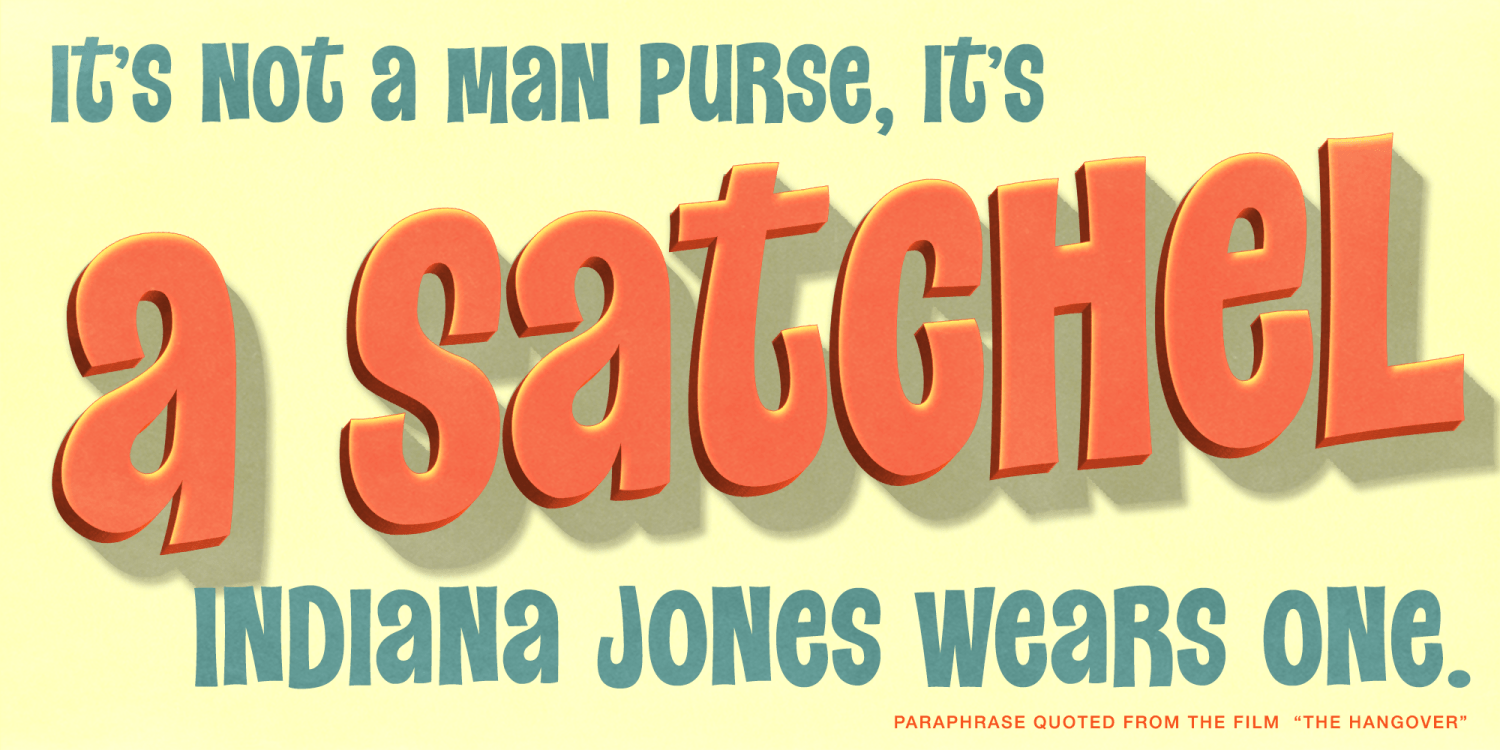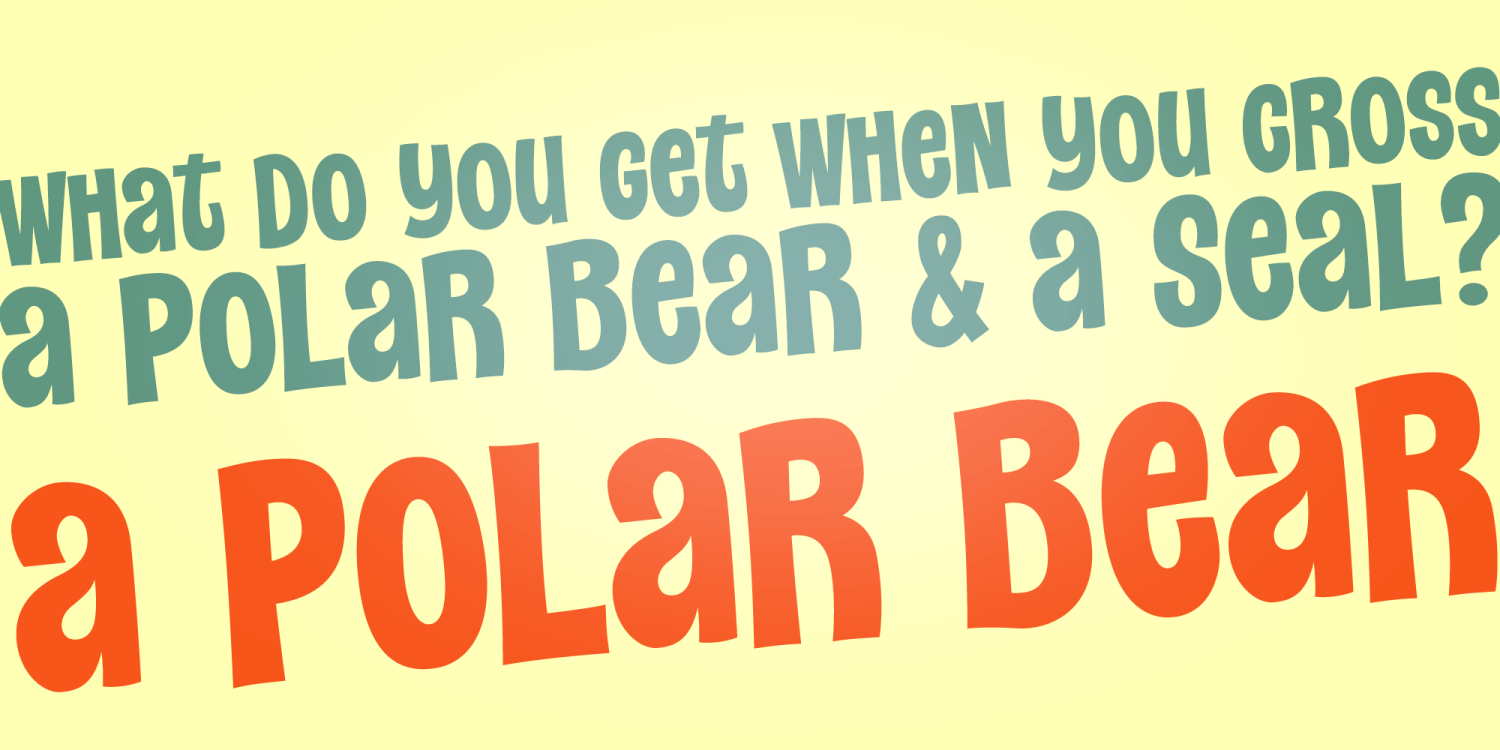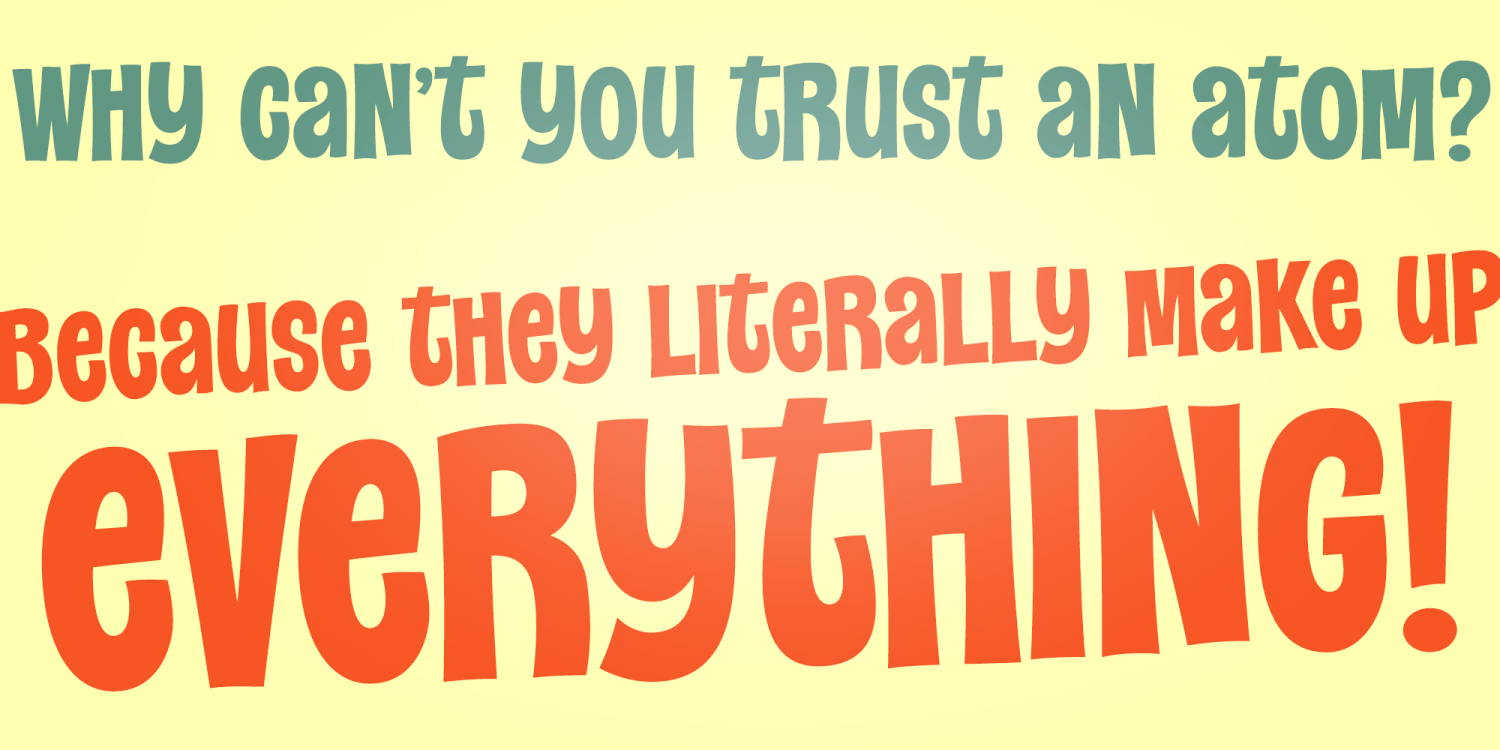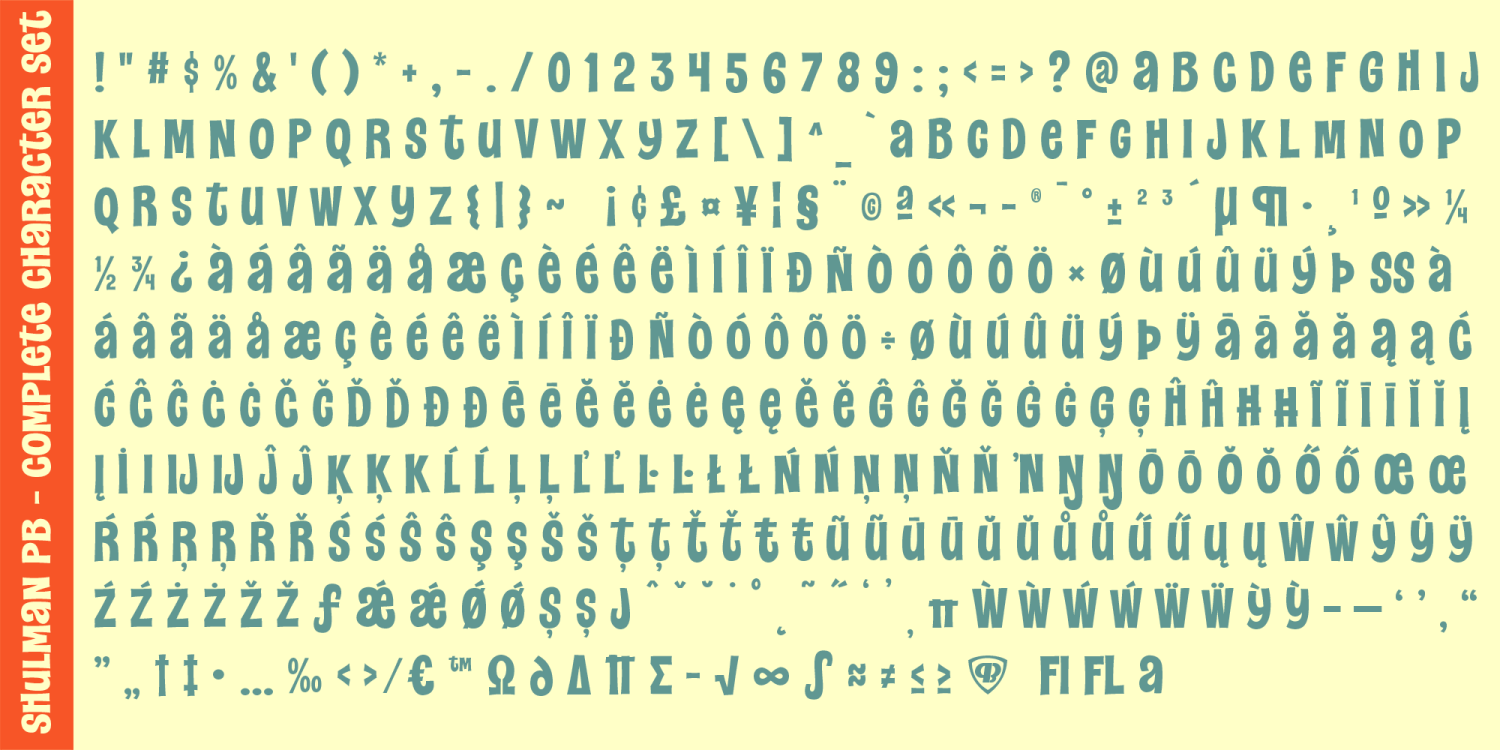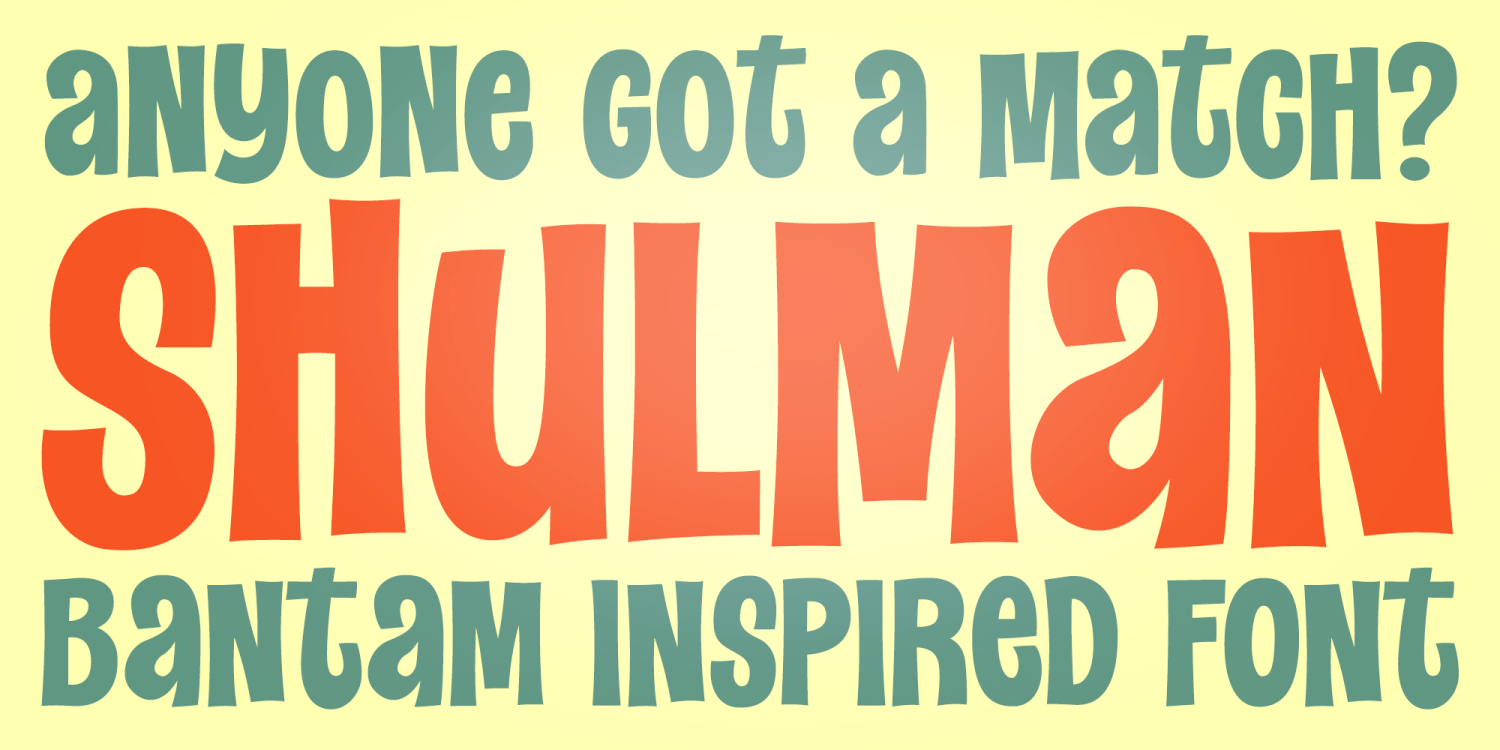
Shulman PB
About Shulman PB
Shulman PB was inspired by the title lettering on the 1st Edition paperbacks for Max Shulman's "Anyone Got a Match?" from 1965. The lettering has a friendly and animated feel with unicase styling. These are truly the types of lettering styles…